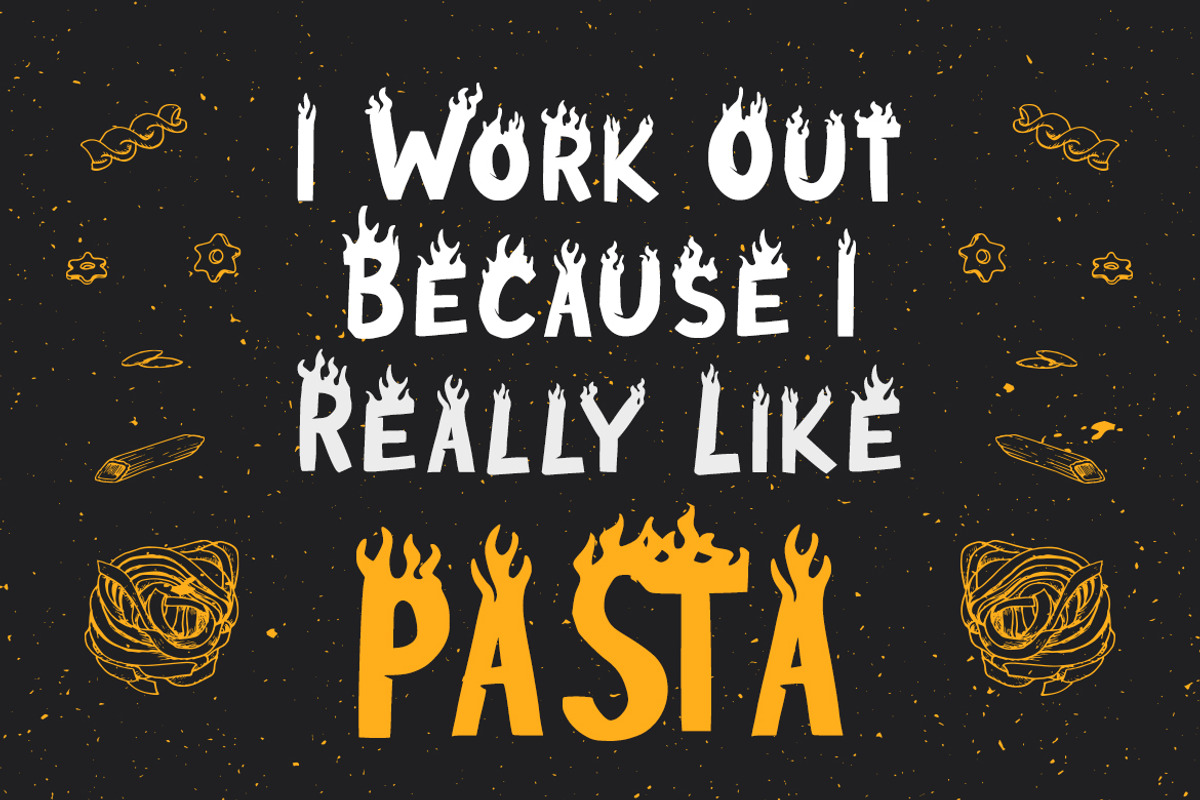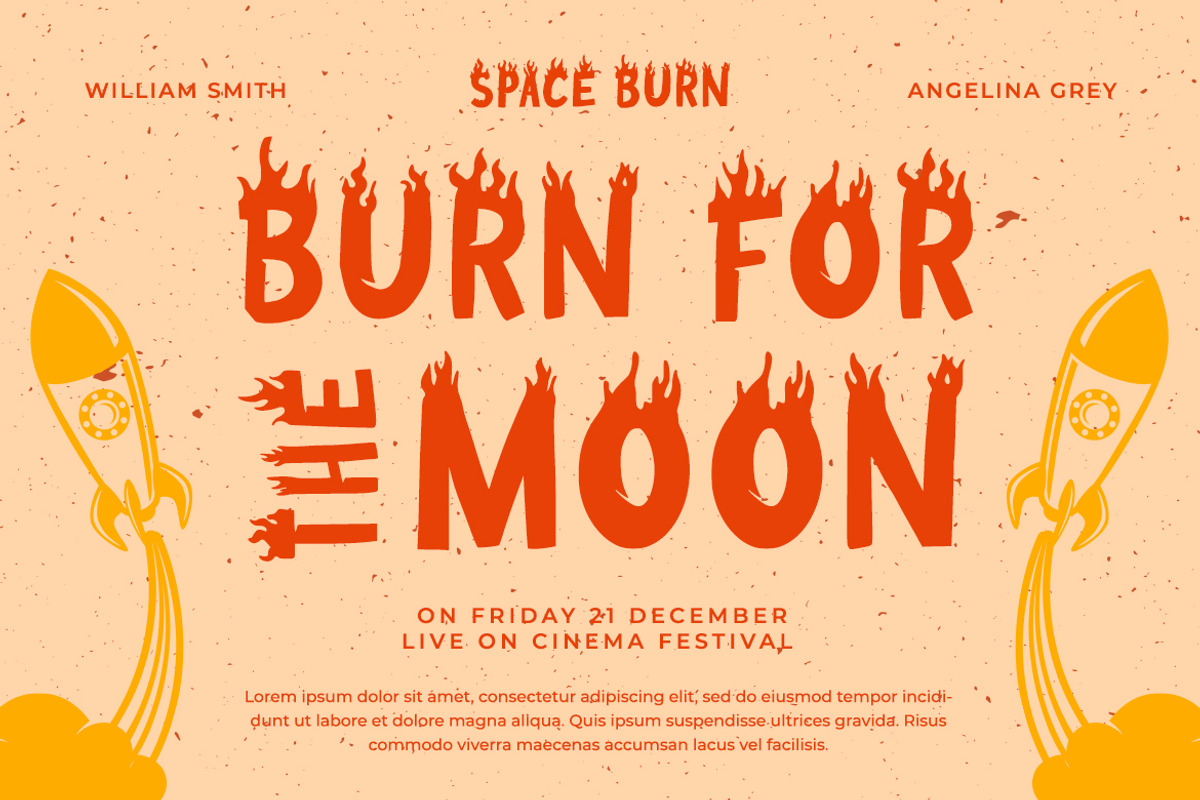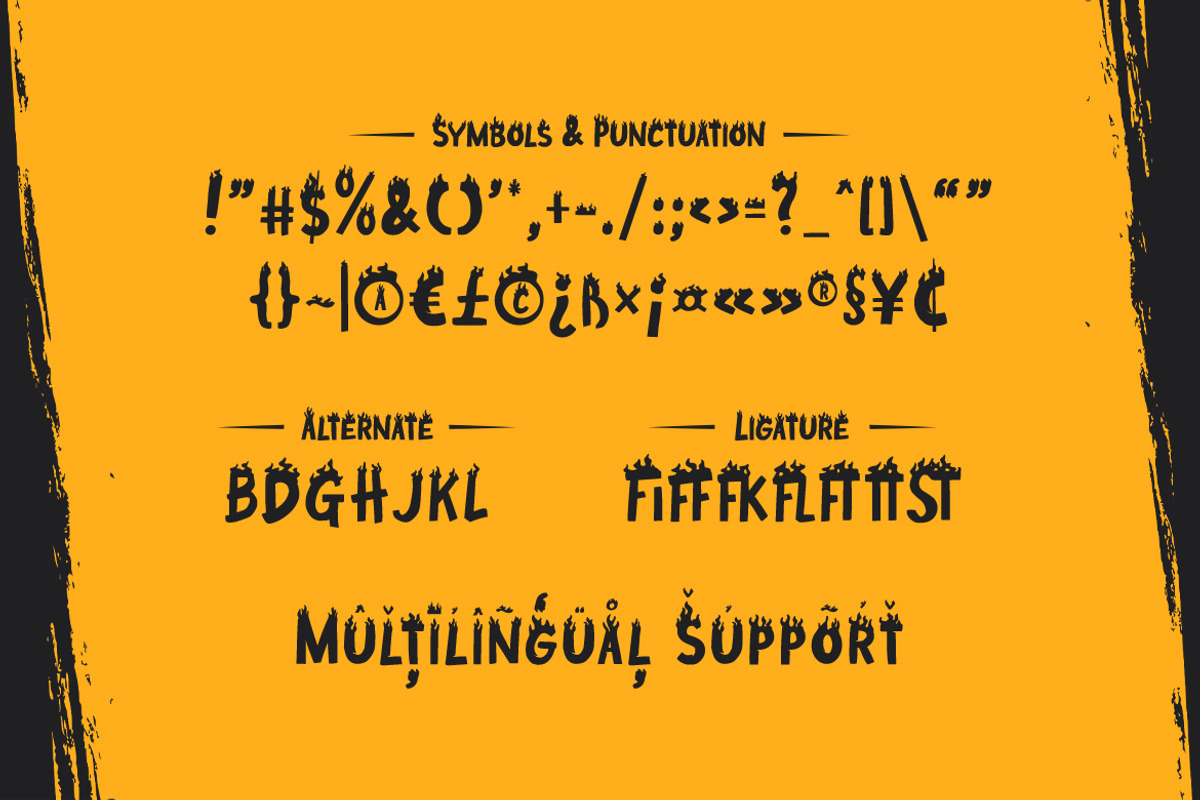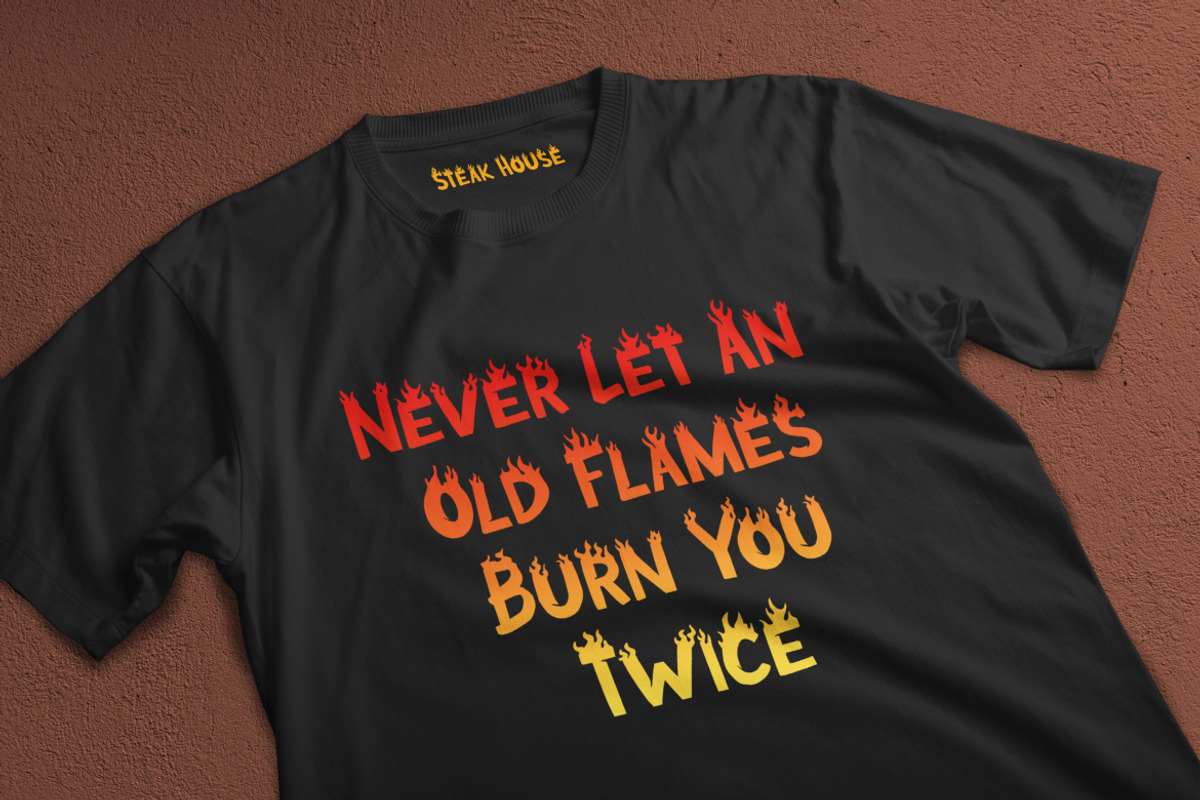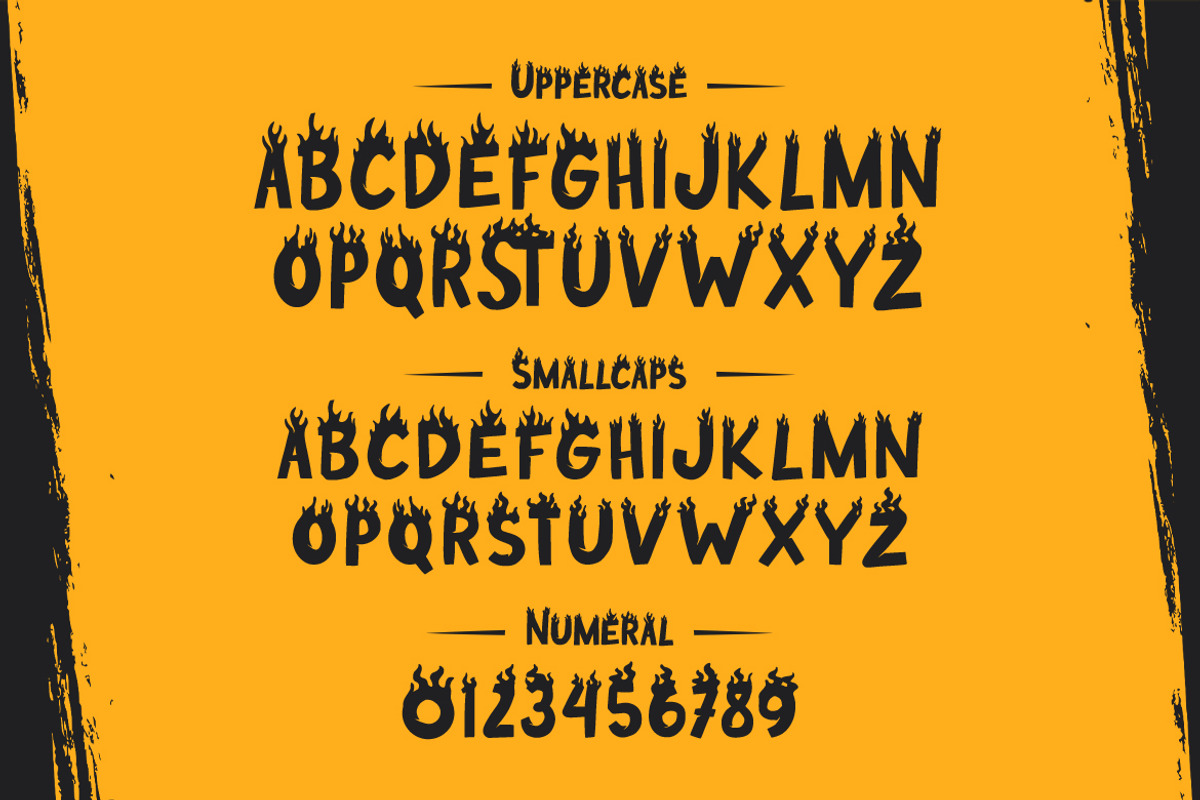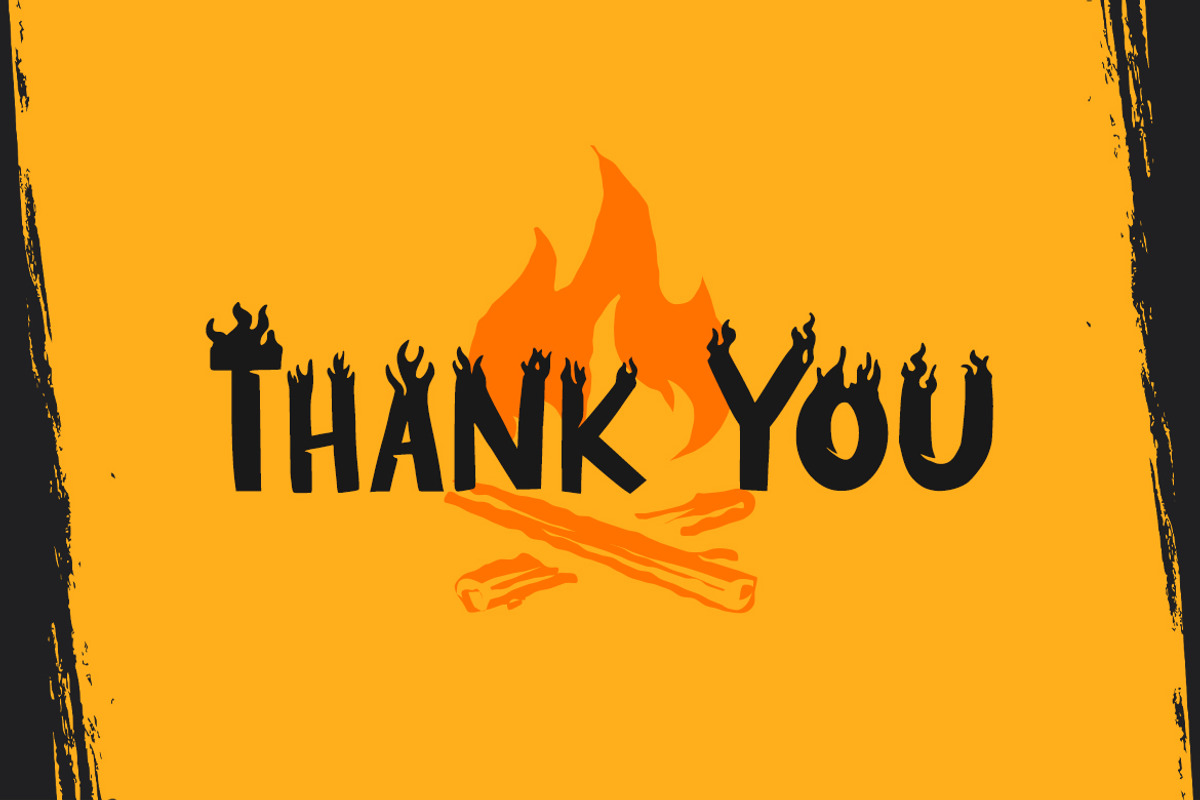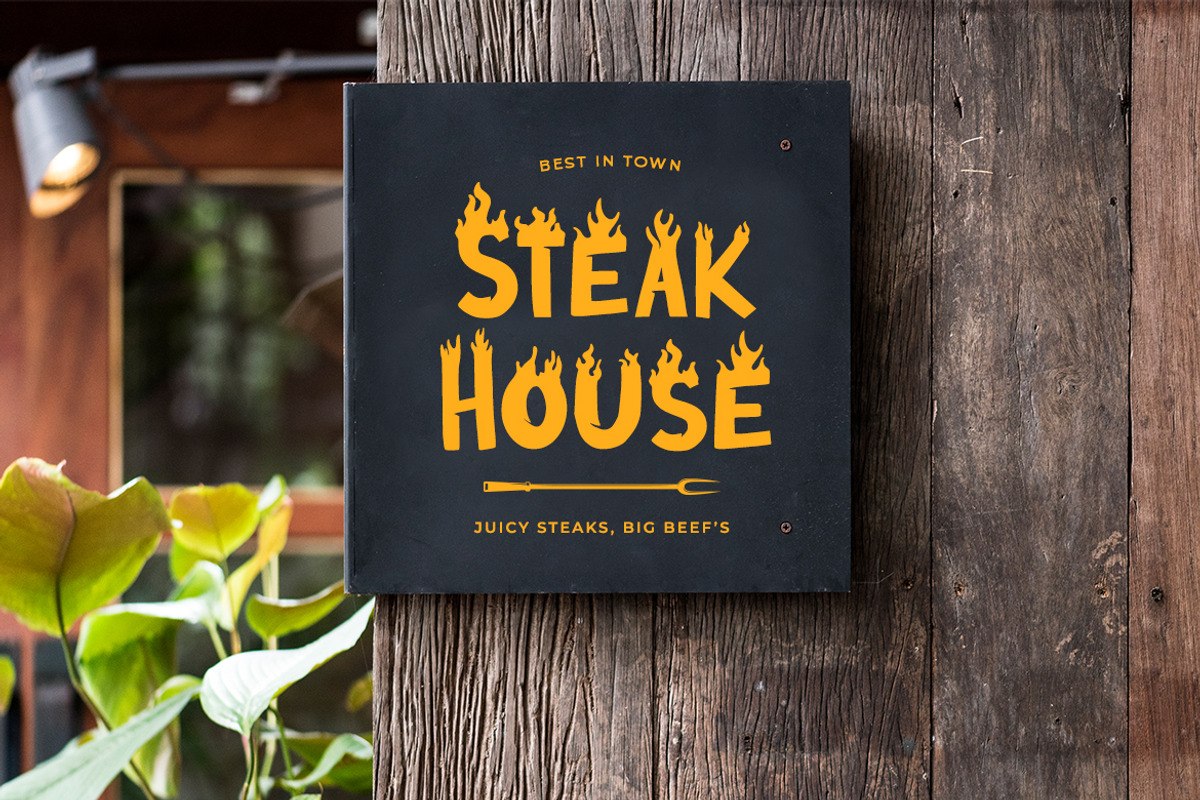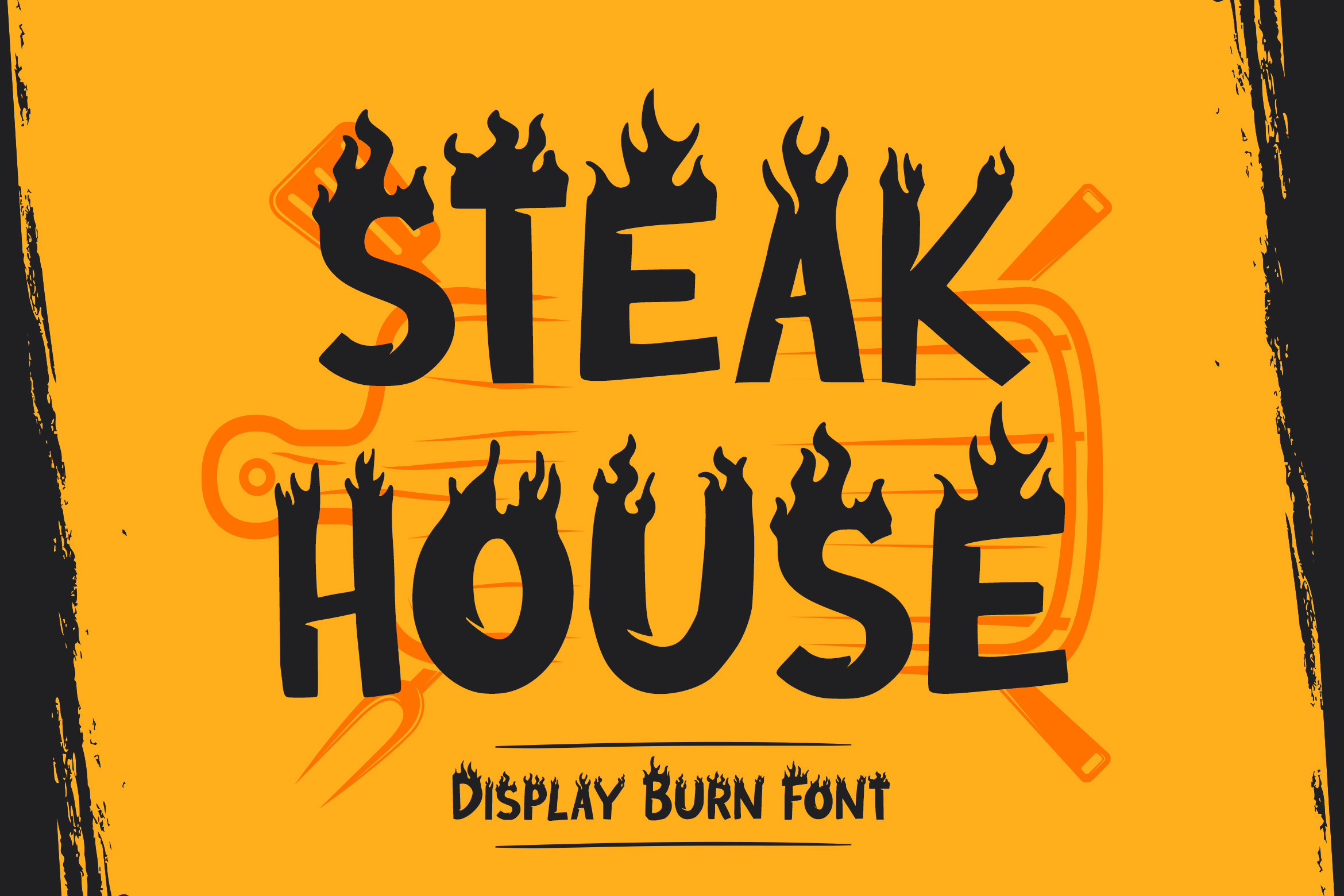
Steak House - Display Burn Font
Steak House is a fiery and fun display font that has burning feel. Steak House has a fiery effect, it’s the perfect font for giving any design a fiery and burning feel, spices brand, or maybe grilled delicious food!
- Symbols & Punctuation
- Numeral